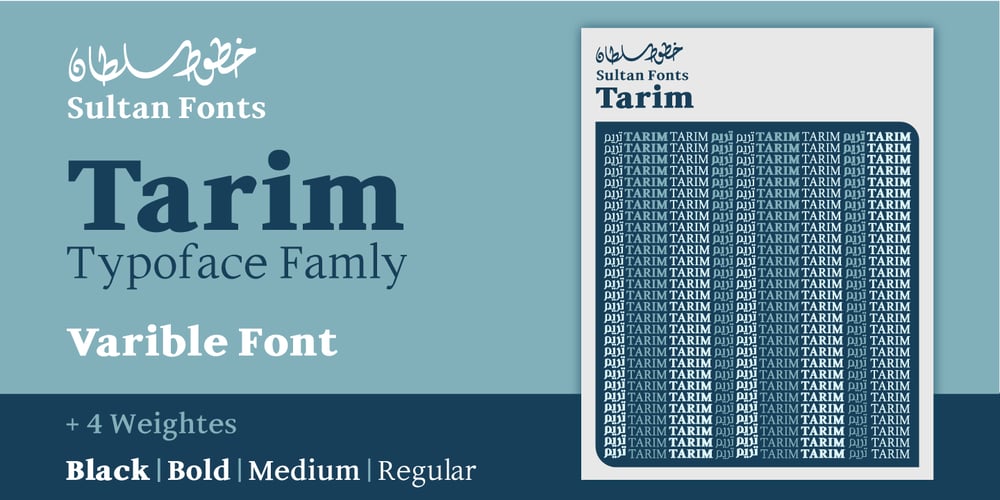
Tarim
Tarim font
Tarim Font Family was designed by Sultan Maqtari and published by Sultan Fonts. Tarim contains 4 styles and family package options. Tarim is an active contemporary variable font, complete with a flexible range of cases tailored to responsive layouts designed by Sultan Maqtari.Tarim is serif style typeface for desktop applications, websites and digital apps. The font family contains 4 weights: regular , medium, bold and black.and includes a design that supports Latin & Arabic languages.Tarim typeface comes with many OpenType features.